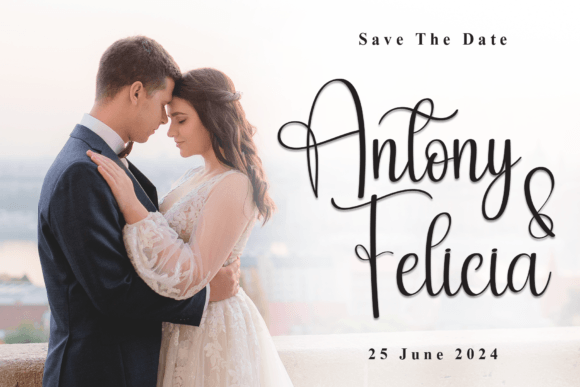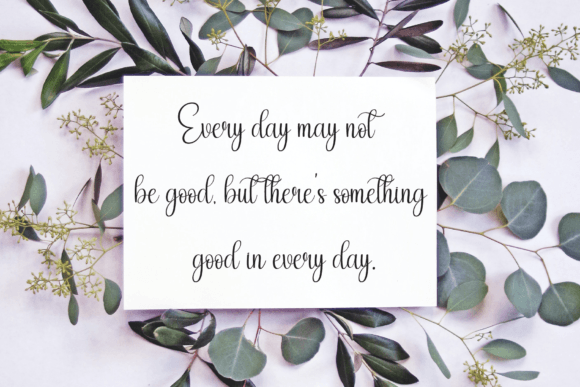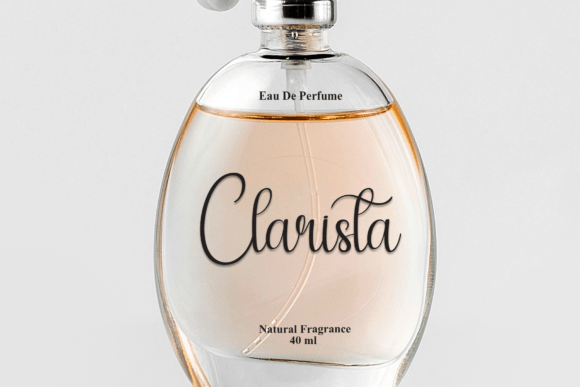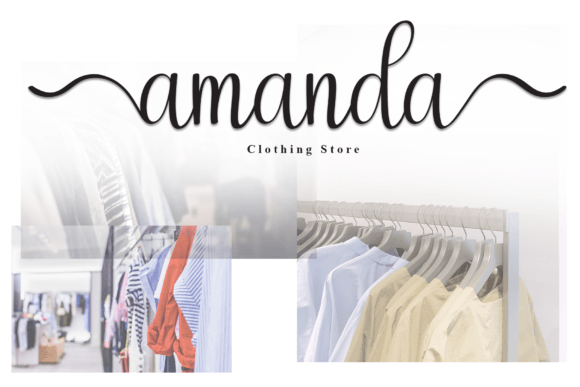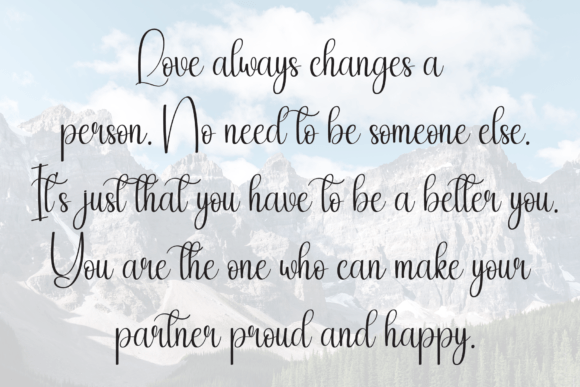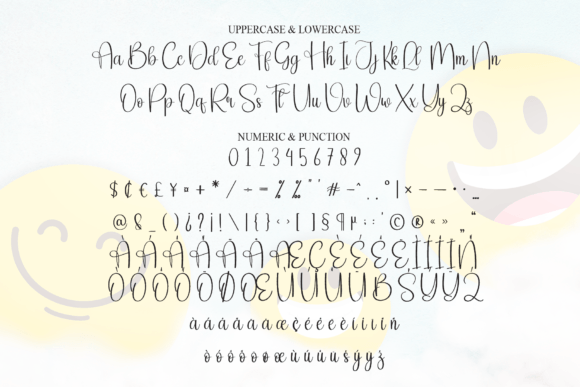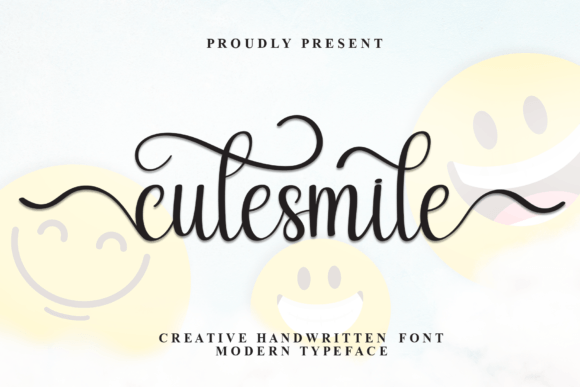
Cutesmile Font: Adding a Touch of Whimsy to Your Designs
Are you looking for a font that can add a dash of warmth and friendliness to your designs? Look no further than the Cutesmile Font! This charming and warm handwritten typeface is perfect for transforming wedding invitations, cards, or any design project into a pleasing masterpiece. In this article, we’ll dive into the features and benefits of the Cutesmile Font and explore how it can elevate your creative work.
A Friendly and Playful Font
The Cutesmile Font is a beautifully handwritten typeface that exudes a friendly and playful aura. Its natural flow and effortless curves make it perfect for designs that require a personal touch. Whether you’re creating wedding invitations, greeting cards, or social media graphics, this font is sure to bring a smile to your viewers’ faces.
Key Features of Cutesmile Font
- Handwritten with love: The Cutesmile Font is carefully crafted to resemble handwritten text, giving it a warm and personal feel.
- Playful and whimsical: The font’s playful curves and irregularities add a touch of whimsy to any design.
- Perfect for creative projects: The Cutesmile Font is ideal for designers, crafters, and DIY enthusiasts looking to add a personal touch to their work.
- Easy to read: Despite its playful nature, the font remains easy to read, making it perfect for body text and titles.
Use Cases for Cutesmile Font
The Cutesmile Font is versatile and can be used in a variety of design projects, including:
- Wedding invitations and stationery: Add a touch of romance and whimsy to your wedding designs with this beautiful font.
- Greeting cards and gift tags: Create personalized and playful greeting cards and gift tags with the Cutesmile Font.
- Social media graphics: Use the font to create engaging and friendly social media graphics that will resonate with your audience.
- Branding and packaging: Add a personal touch to your brand’s packaging and marketing materials with this unique font.
Tips for Using Cutesmile Font
To get the most out of the Cutesmile Font, here are some tips to keep in mind:
- Pair with contrasting fonts: Pair the Cutesmile Font with a contrasting font to create visual interest and hierarchy.
- Experiment with colors: Try out different color combinations to find the perfect match for your design.
- Use it sparingly: Use the Cutesmile Font sparingly to avoid overwhelming your design. It works best as an accent font or for short texts.
The Cutesmile Font is a charming and warm handwritten typeface that can add a touch of whimsy and friendliness to your designs. With its playful curves and effortless flow, it’s perfect for transforming wedding invitations, cards, or any design project into a pleasing masterpiece. Whether you’re a designer, crafter, or DIY enthusiast, this font is sure to bring a smile to your viewers’ faces. So why wait? Unleash your creativity and give your designs a delightful dose of fun with the Cutesmile Font!